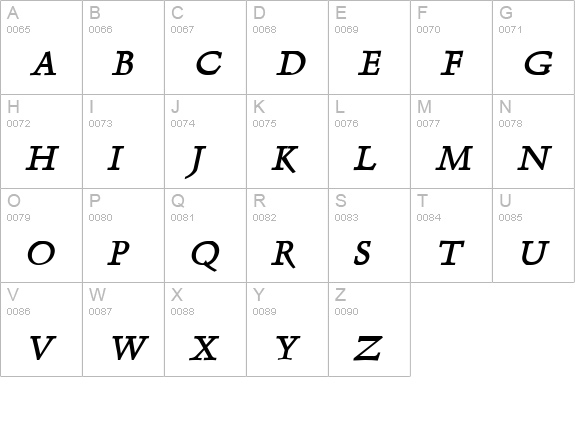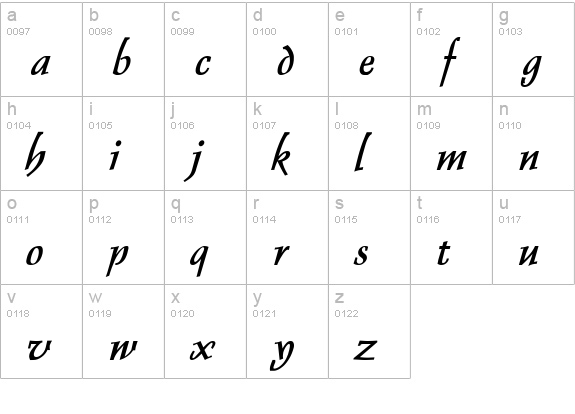
Dolphin Bold Italic is a strong, high-contrast, italic variant in the Dolphin typeface family \xE2\x80\x94 well suited to headlines, attention-grabbing titles, and strong calls-to-action.
Dive into the sleek and graceful world of Dolphin Bold Italic font, where elegance meets modernity in a stunning display of typography. With its bold yet fluid strokes and captivating italic style, this font exudes a sense of sophistication and charm that is perfect for a wide range of design projects. Whether you're working on a branding project, poster design, or website layout, Dolphin Bold Italic font is sure to make a bold statement and leave a lasting impression on your audience. Its unique combination of strength and grace will elevate your designs to new heights and bring a touch of class to any project. And the best part? Dolphin Bold Italic font is completely free to download at FontsMarket.com, making it accessible to designers of all levels. So why wait? Dive in and add a touch of elegance to your designs with Dolphin Bold Italic font today!